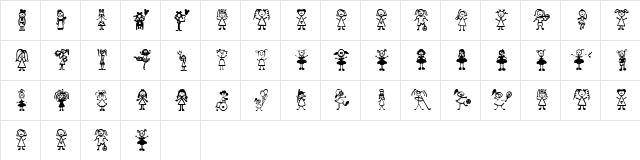
Girl Characters Regular
Design Context for Girl Characters Typeface
Girl Characters is a composed and adaptable typeface that performs quietly and consistently across a wide range of design contexts.